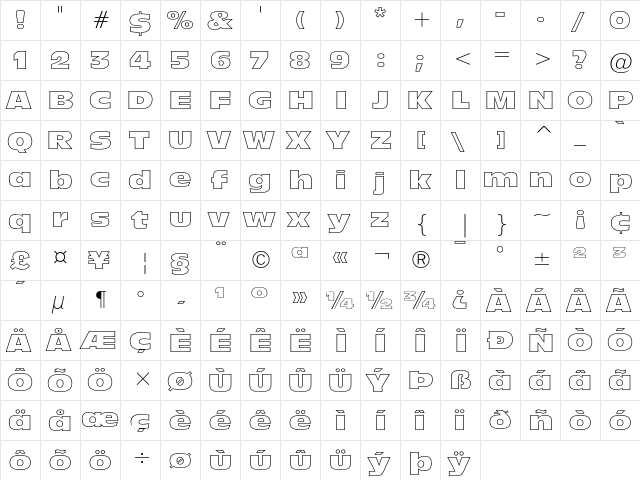
Incised 901 Nord Outline
Design Context for Incised 901 Typeface
Incised 901 brings ornamental detail and strong personality to headlines and identities, where visual impact matters more than quiet functionality.
Font Pairing: Pair with a clean neutral sans-serif for body copy to let Incised 901's character lead without overwhelming the composition.
Pro Tip: Use Incised 901 exclusively at display sizes — it was designed to be seen, not read at length. Let a neutral companion handle body copy.